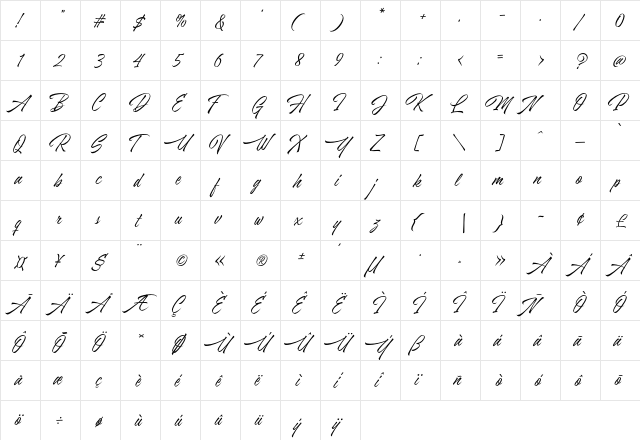
Azkia Demo Regular
| Foundry | Hendra Pratama |
| Designer | Hendra Pratama |
Design Context for Azkia Demo Typeface
Azkia Demo is a composed and adaptable typeface that performs quietly and consistently across a wide range of design contexts.